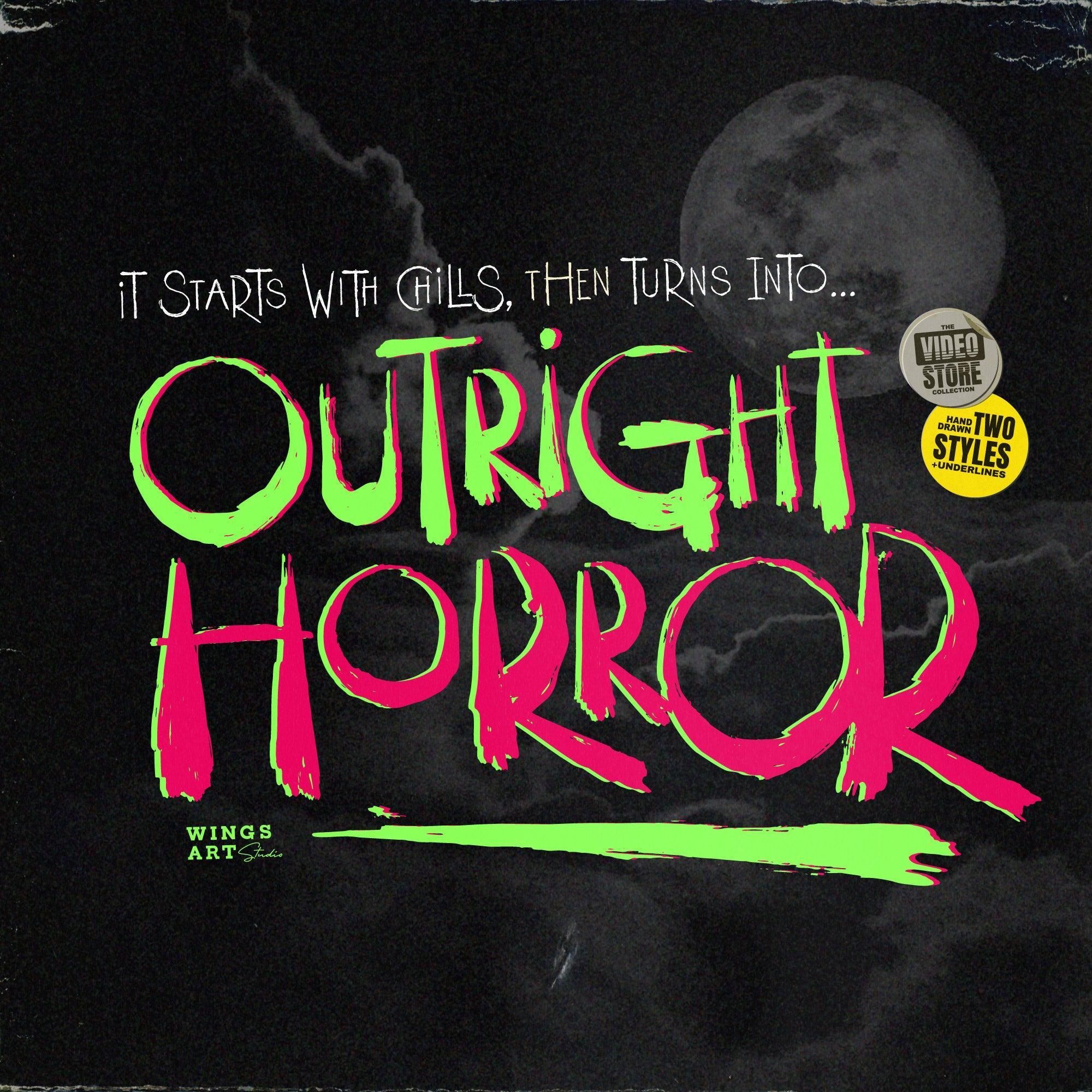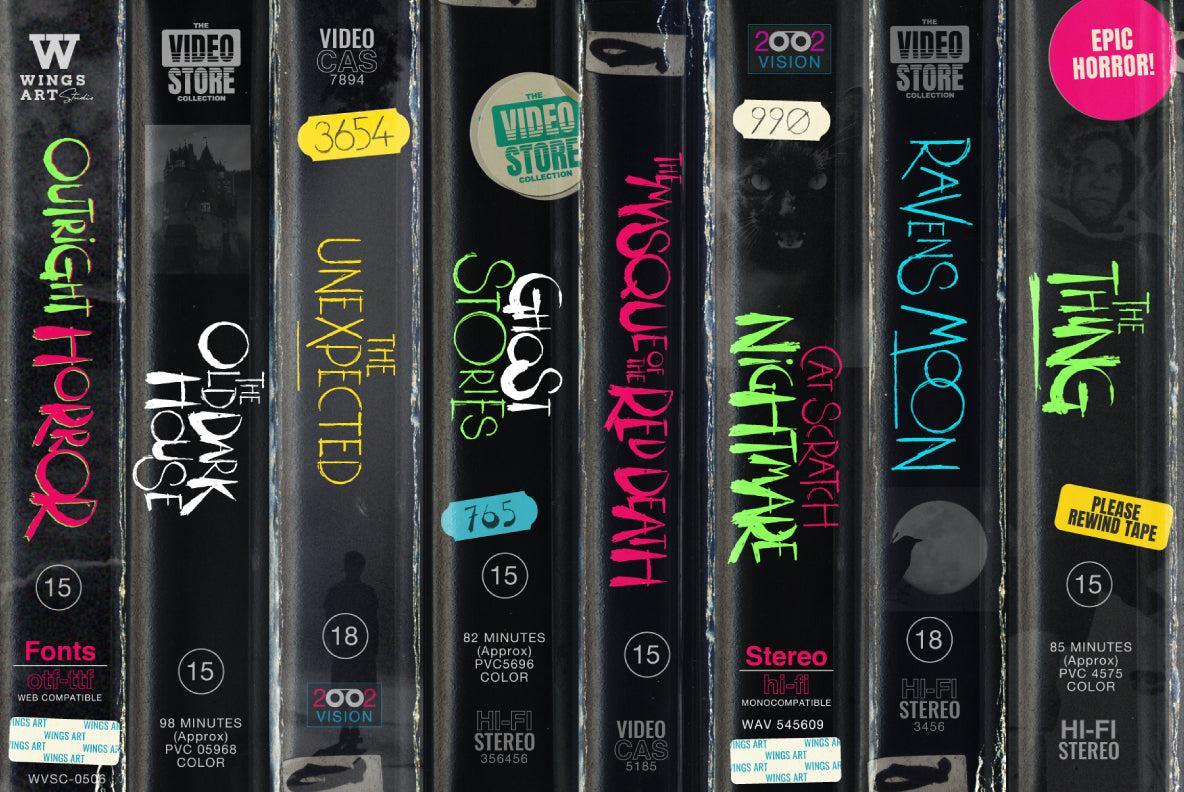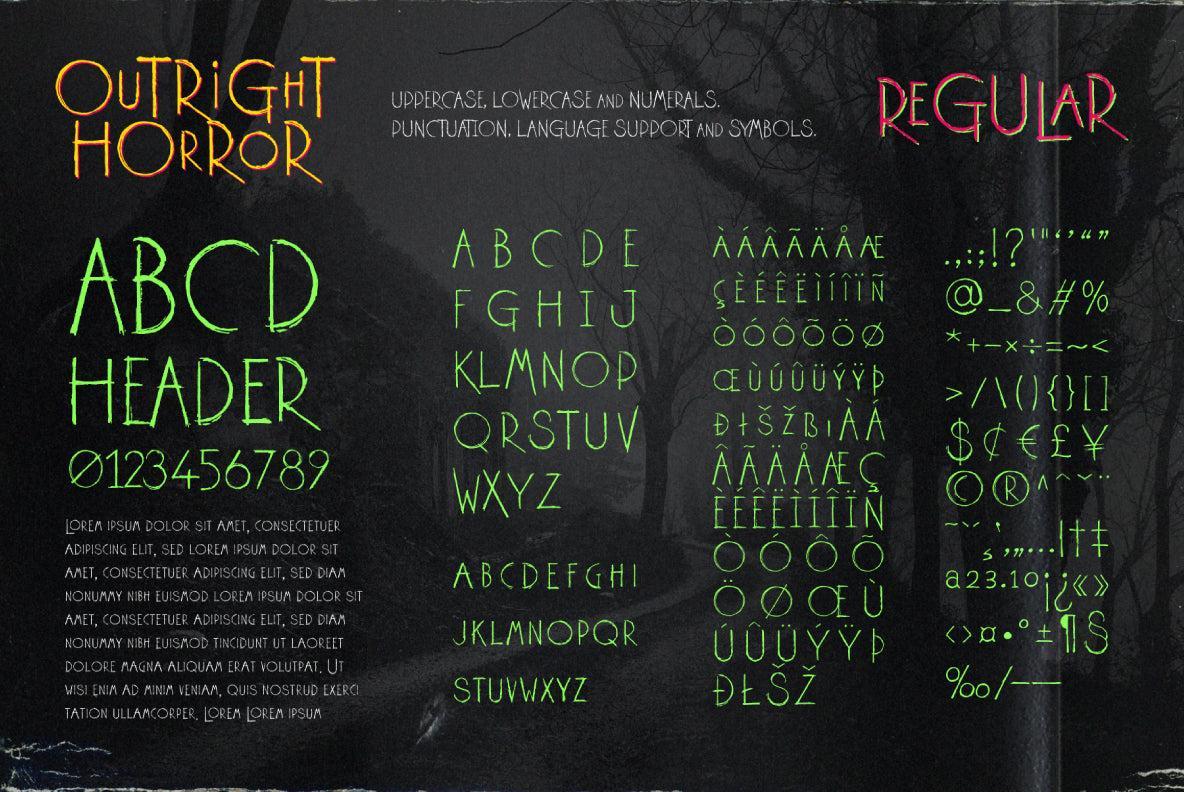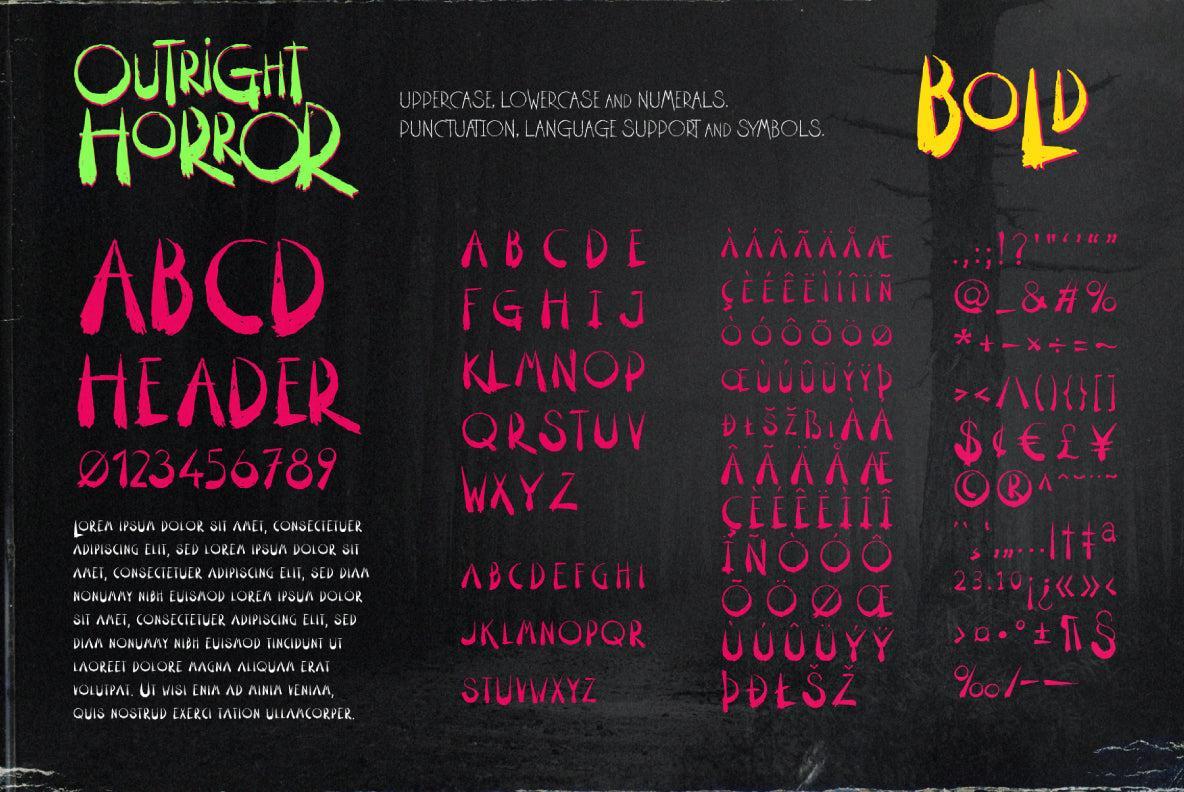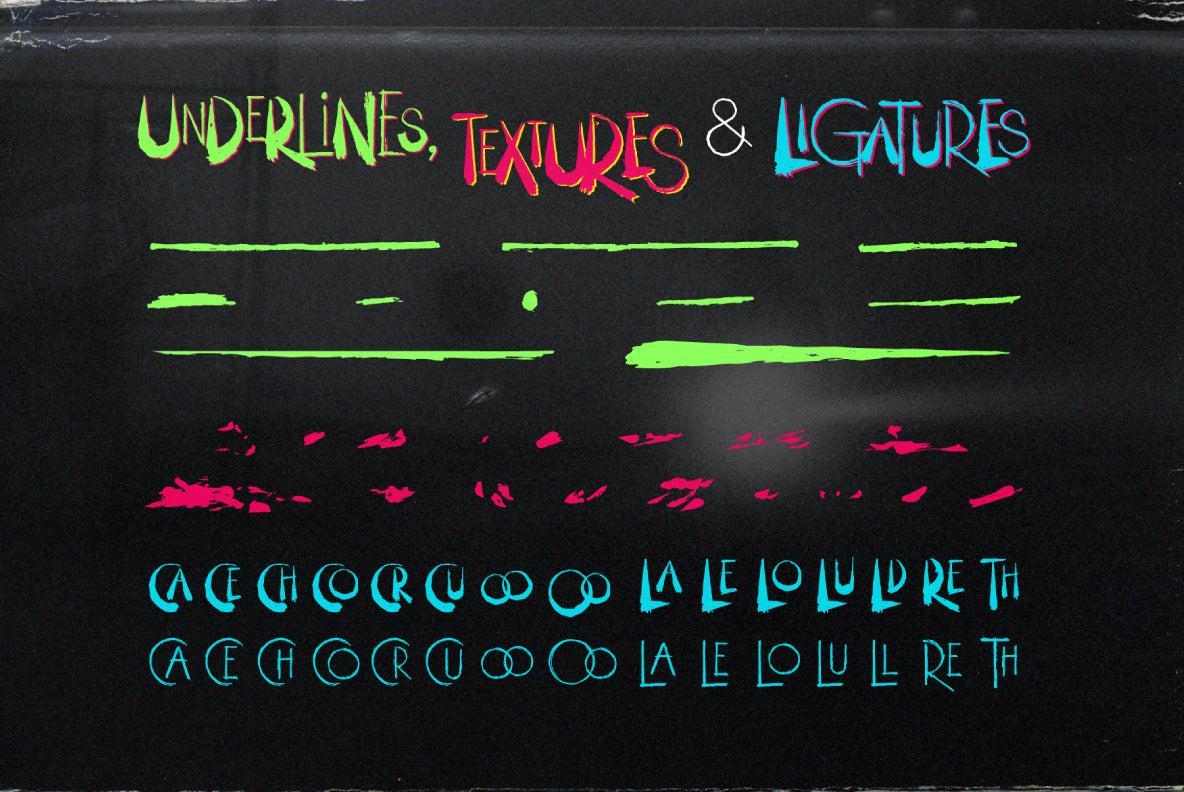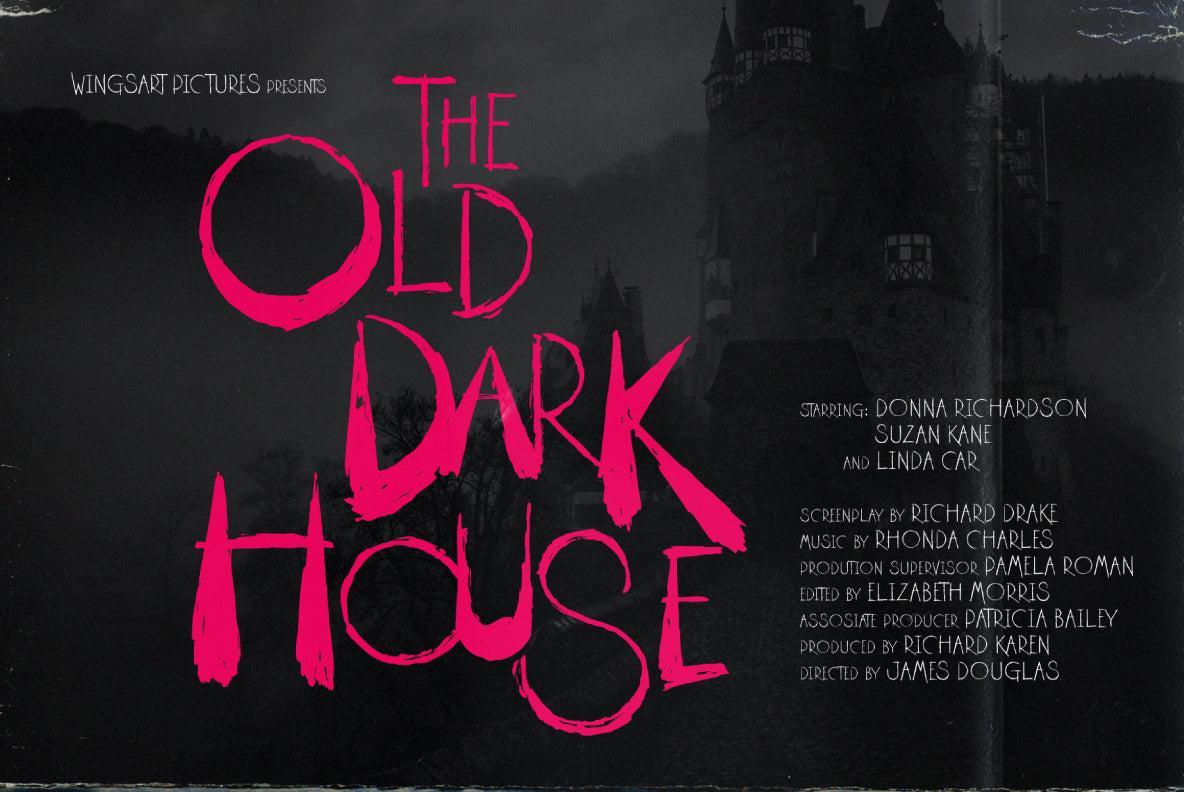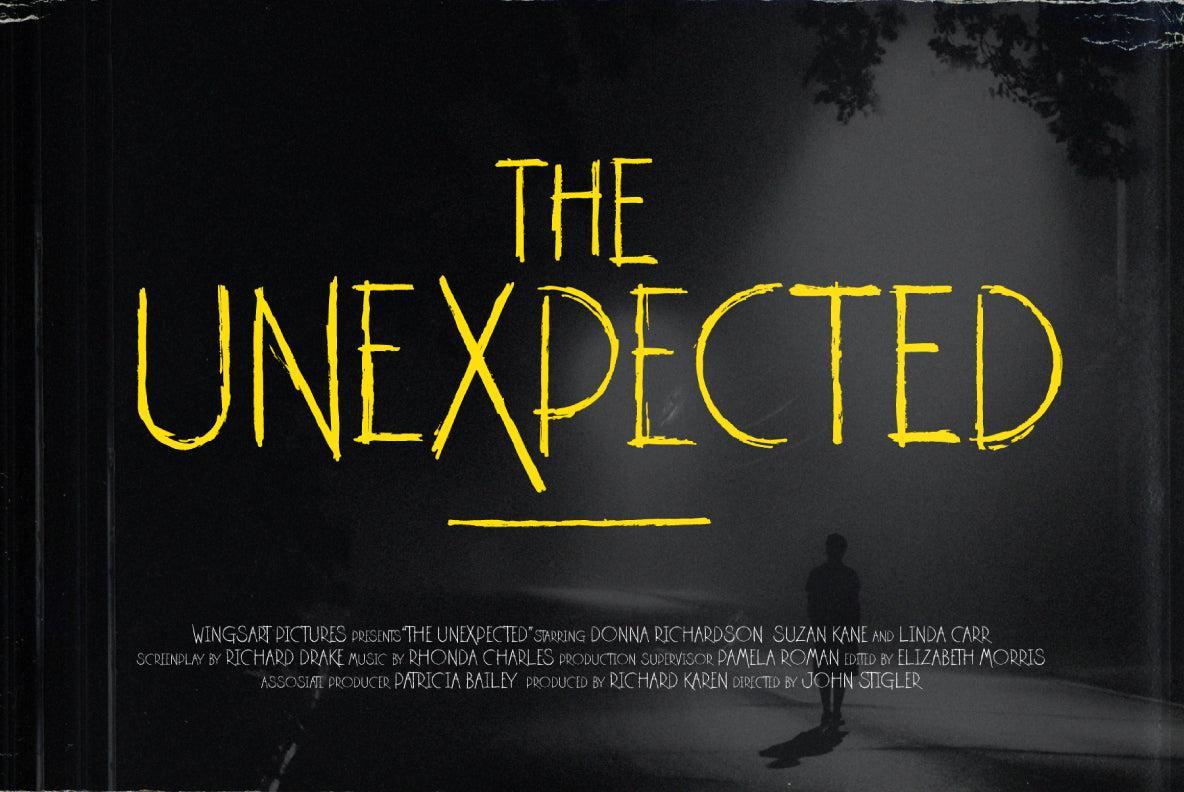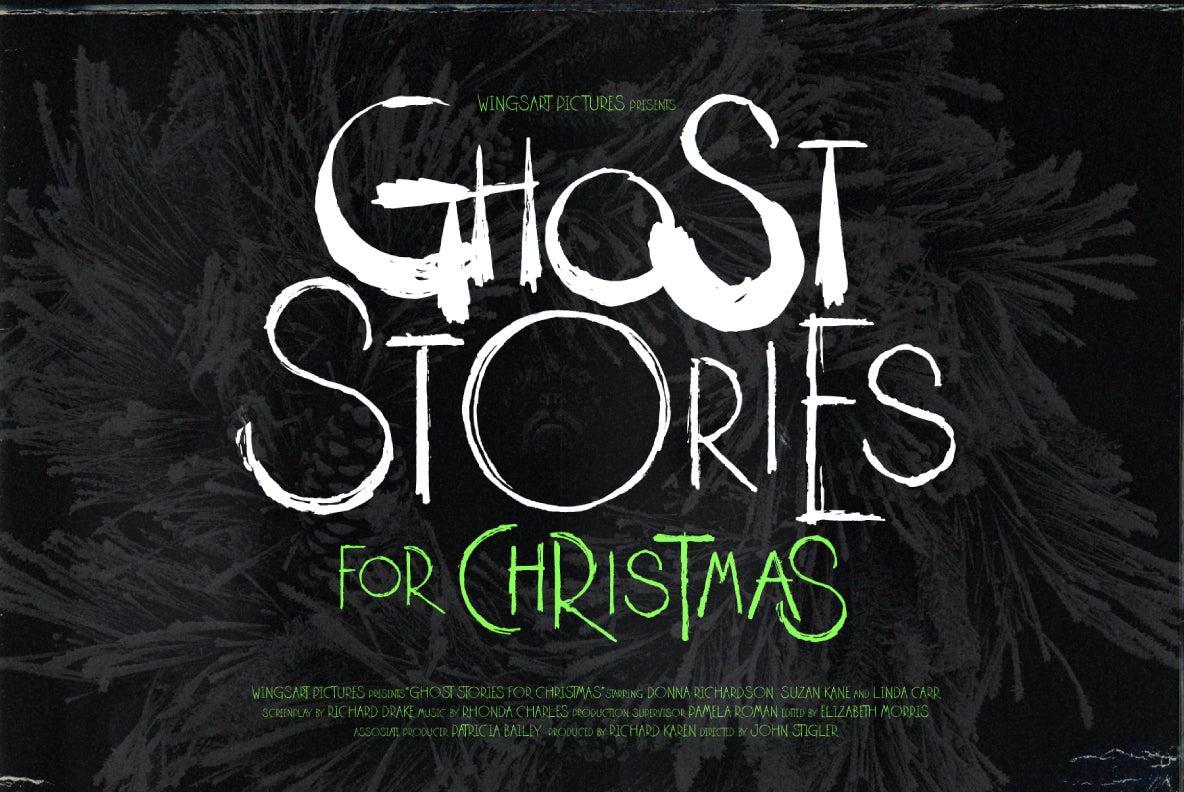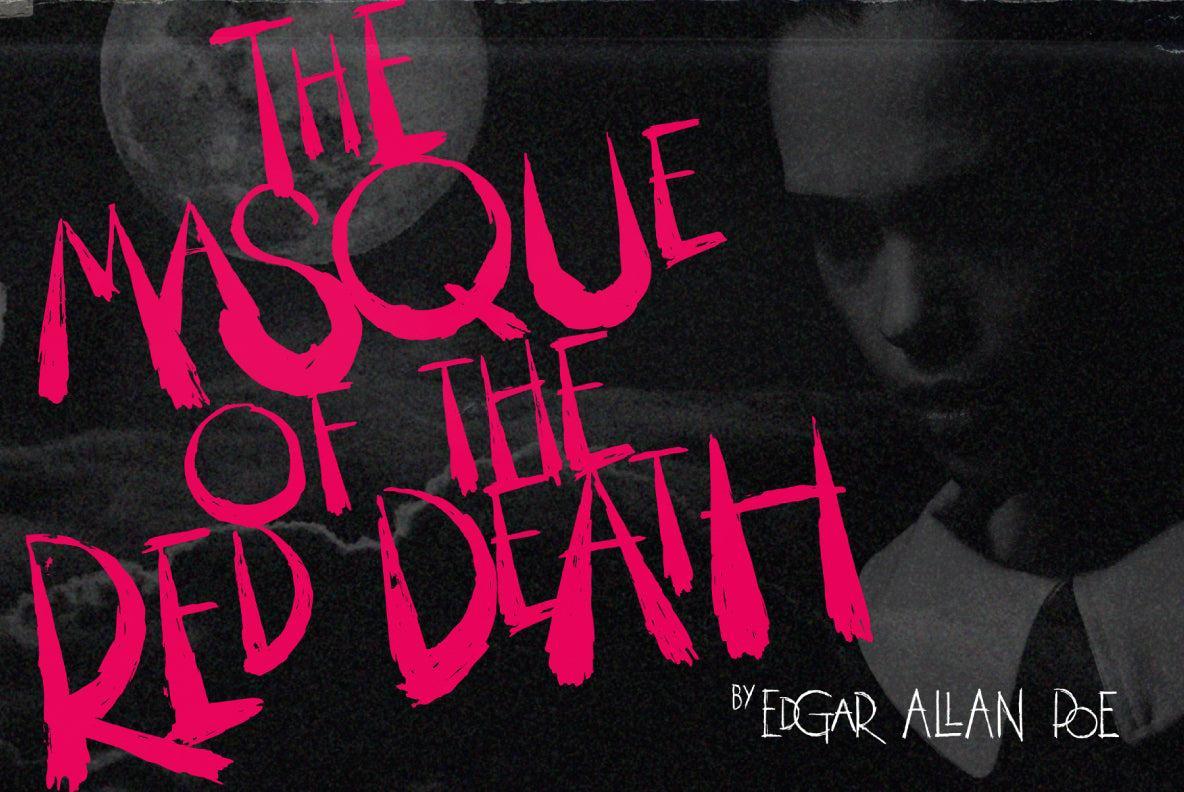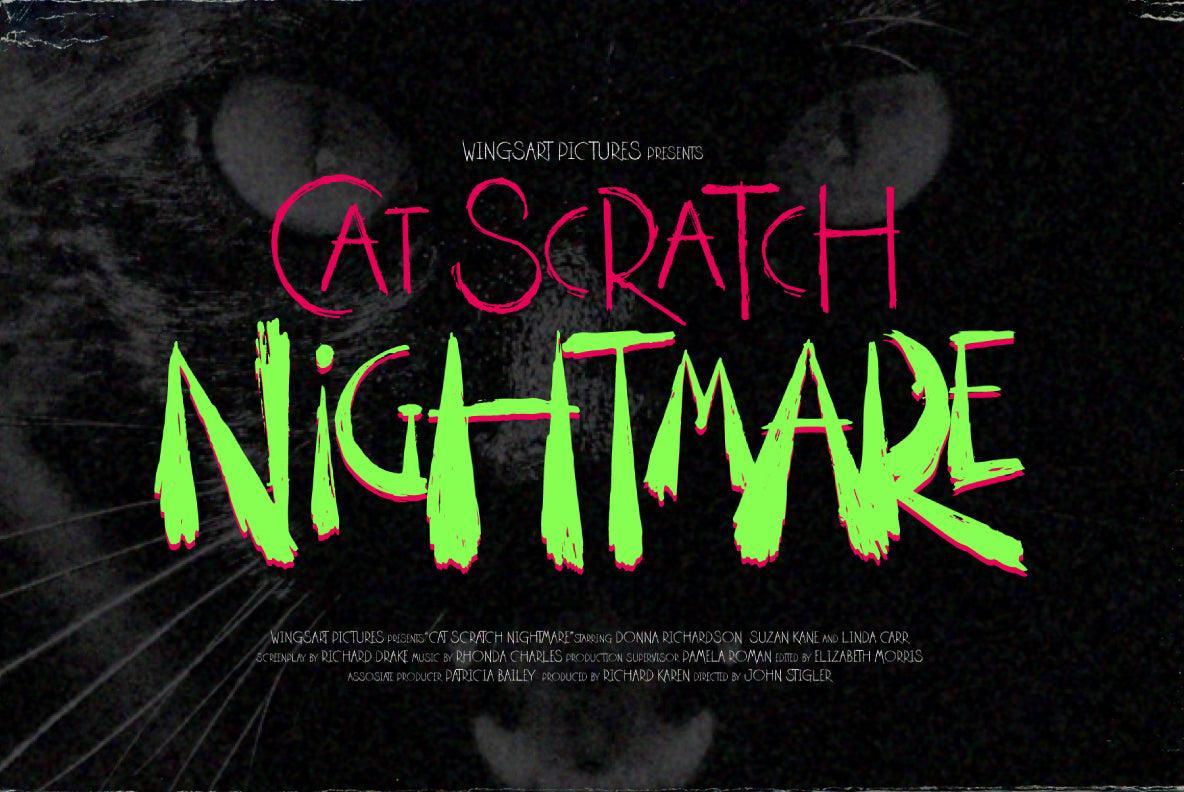
Outright Horror: Hand-drawn Halloween Font
Outright Horror is a hand-drawn Halloween font featuring an all-caps scratched style paired with a contrasting brush font. It includes numerals, punctuation, language support, custom underlines, and automatic ligatures, making it suitable for various design projects.
Ideal for horror-themed graphic design and retro-inspired projects. Perfect for posters, branding, album covers, and Halloween promotions, ensuring a captivating and eerie aesthetic that resonates with audiences.